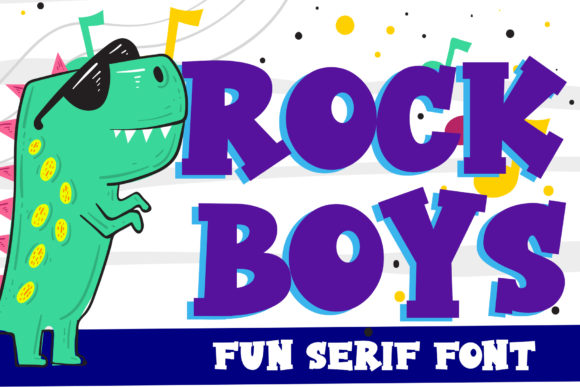
Unleash your creativity with Rock Boys, the extraordinary display font that ignites your designs with boldness and originality. Dive into a world of visual enchantment as Rock Boys captivates your audience with its powerful presence.
* Step into the spotlight: *
Command attention with Rock Boys' dynamic and confident strokes, making your logos, branding, and social media platforms shine brighter than ever before.
* Craft unique DIY projects: *
Transform your creative visions into tangible masterpieces with Rock Boys. Its versatility lends itself seamlessly to a multitude of DIY projects, adding a touch of uniqueness to every endeavor.
* Express your individuality: *
Showcase your distinctive style with Rock Boys. Whether you're creating personalized t-shirts, designing eye-catching posters, or crafting heartfelt cards, Rock Boys empowers you to make a statement that resonates.
* Immerse yourself in creativity: *
Rock Boys is more than just a font; it's an experience. Immerse yourself in a world where imagination knows no bounds, and let your designs soar to new heights.
* Join the Rock Boys revolution: *
Don't miss out on the opportunity to elevate your creative arsenal with Rock Boys. Join countless designers, artists, and crafters who have embraced its charm and witnessed their creations come to life with unparalleled vibrancy.